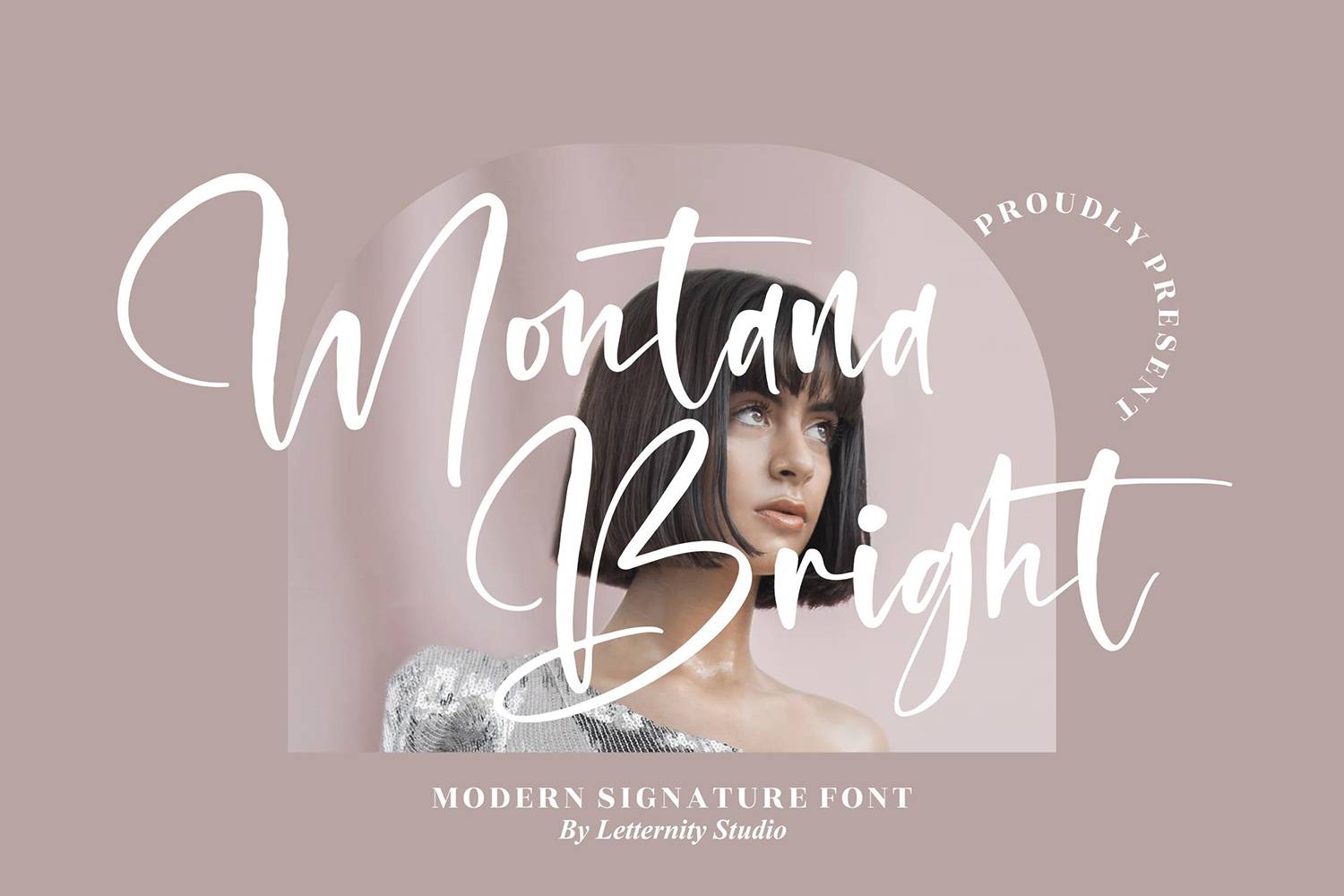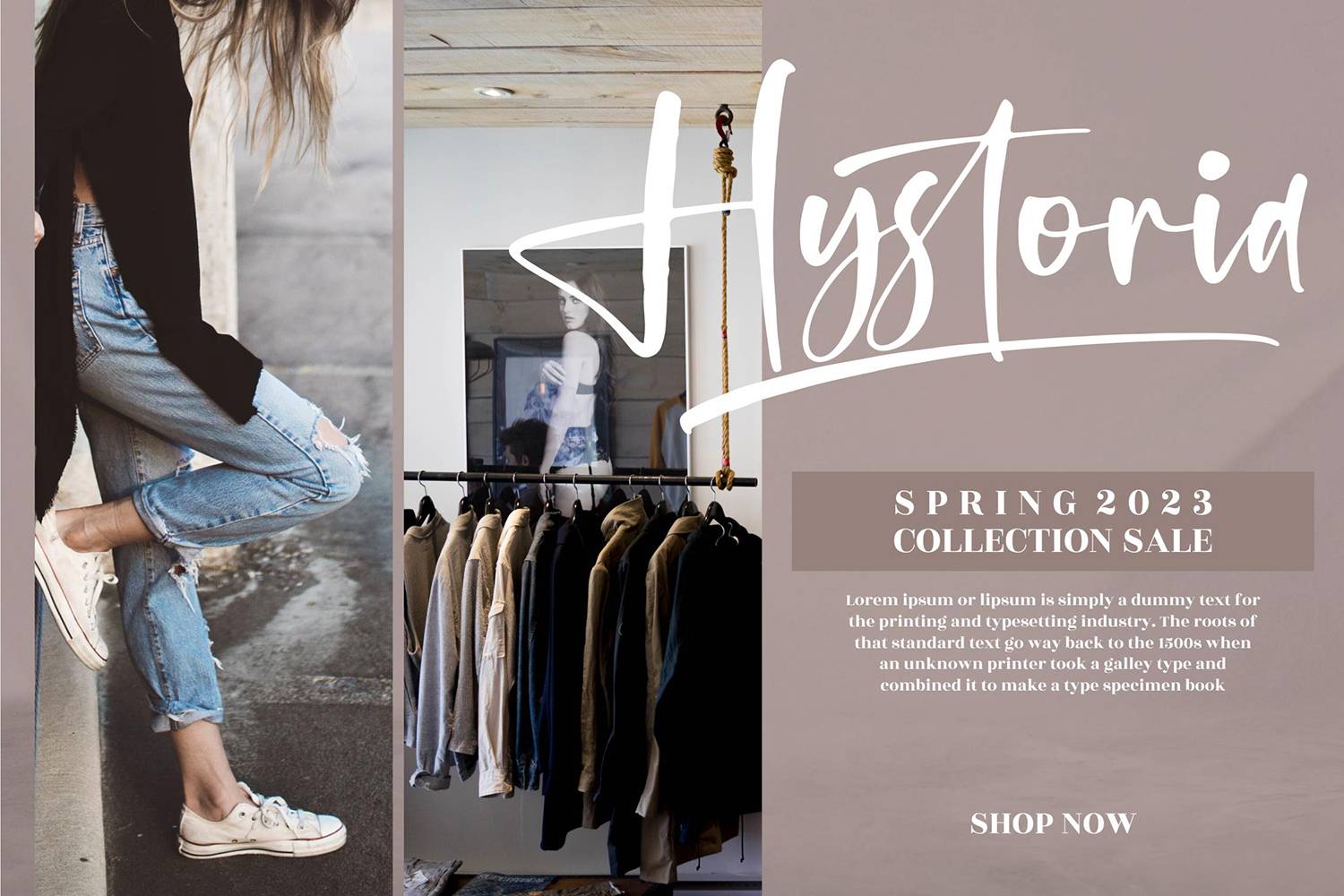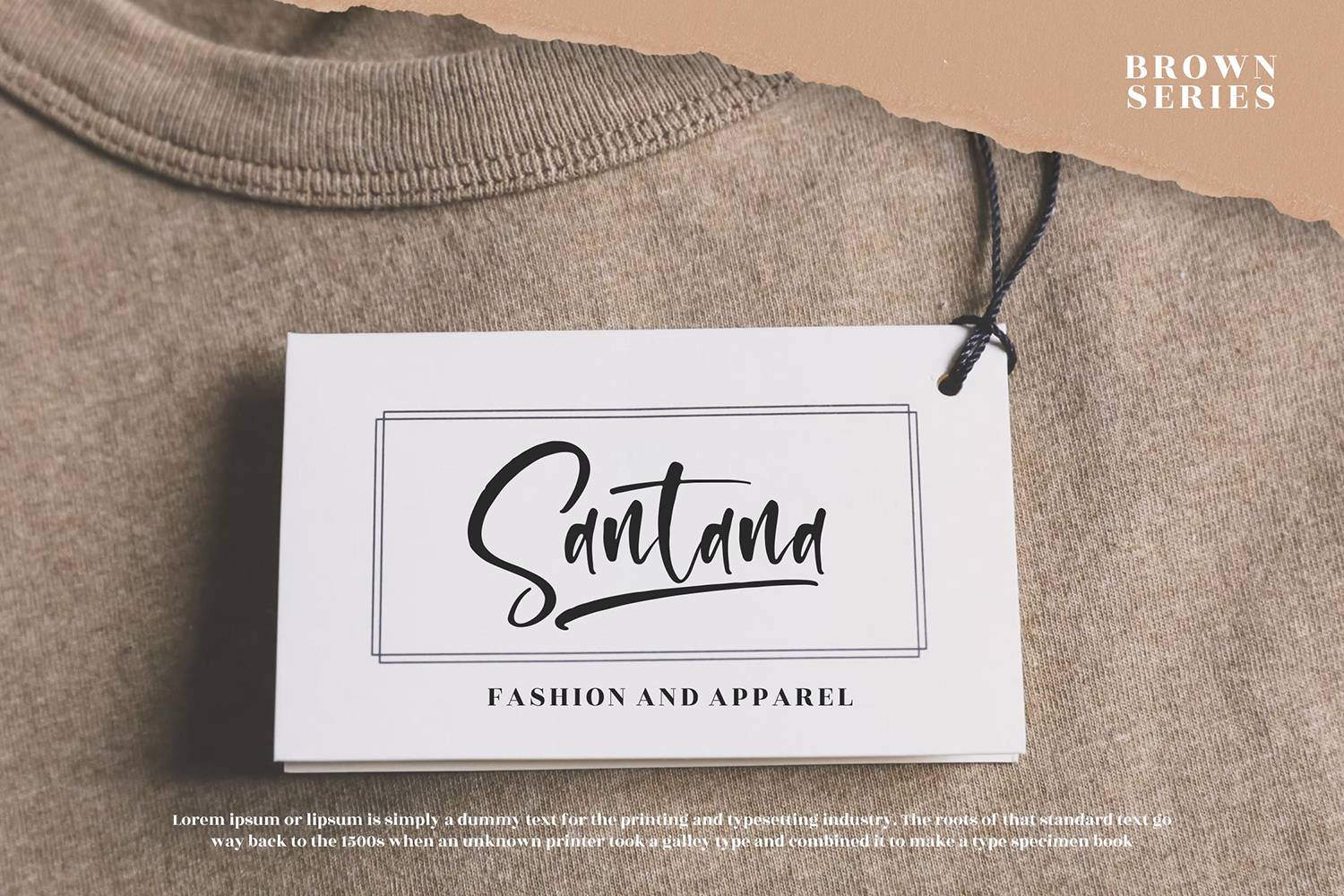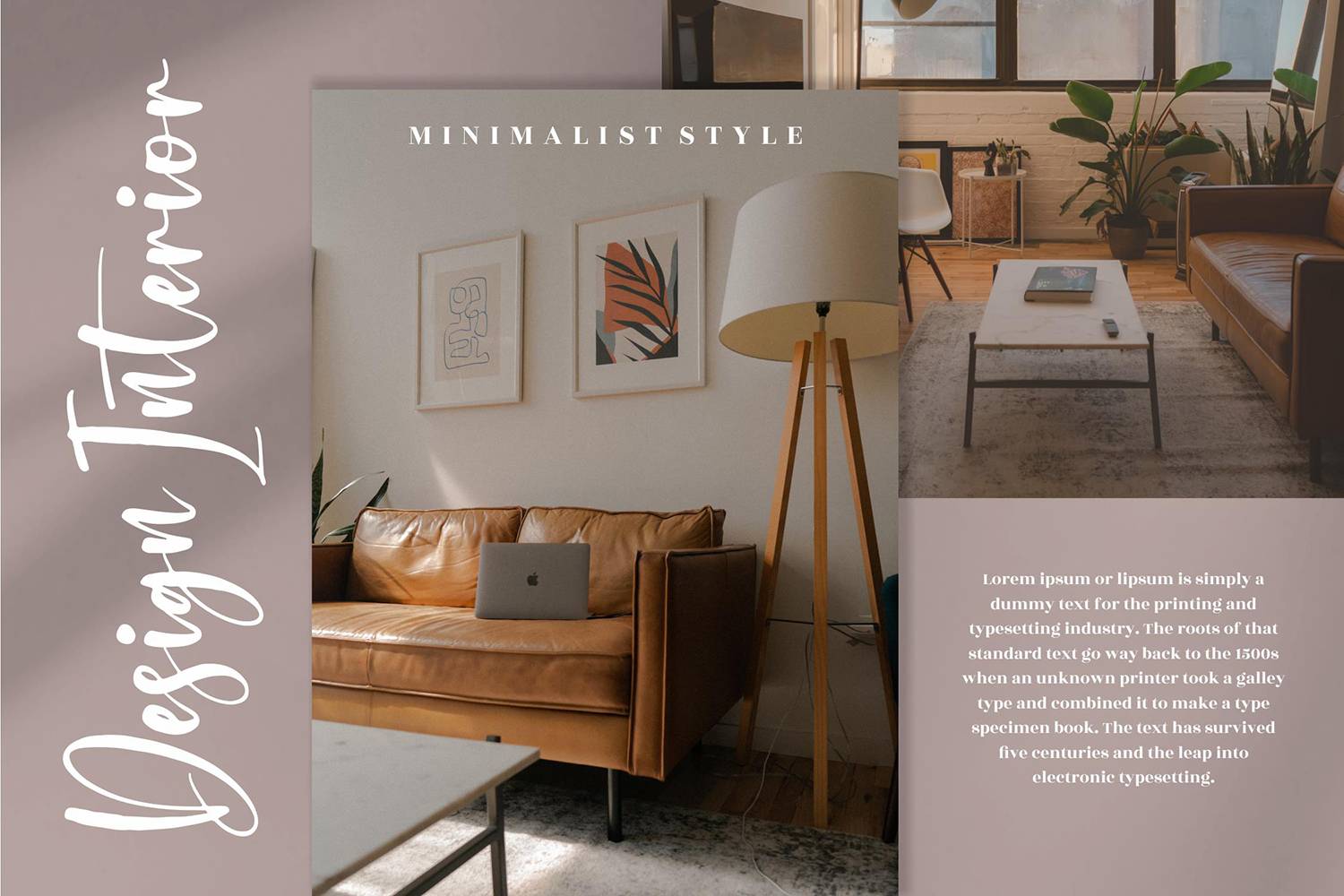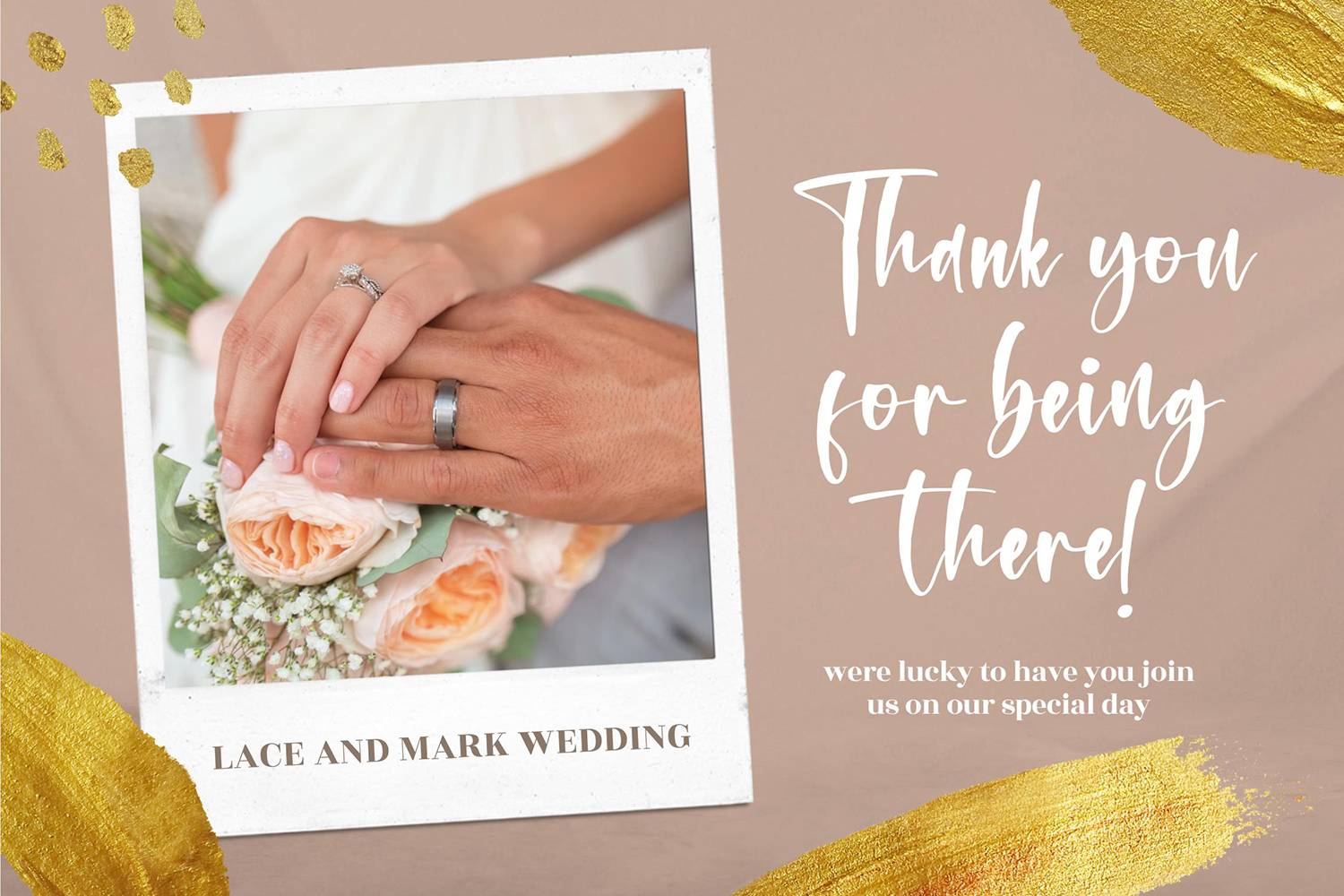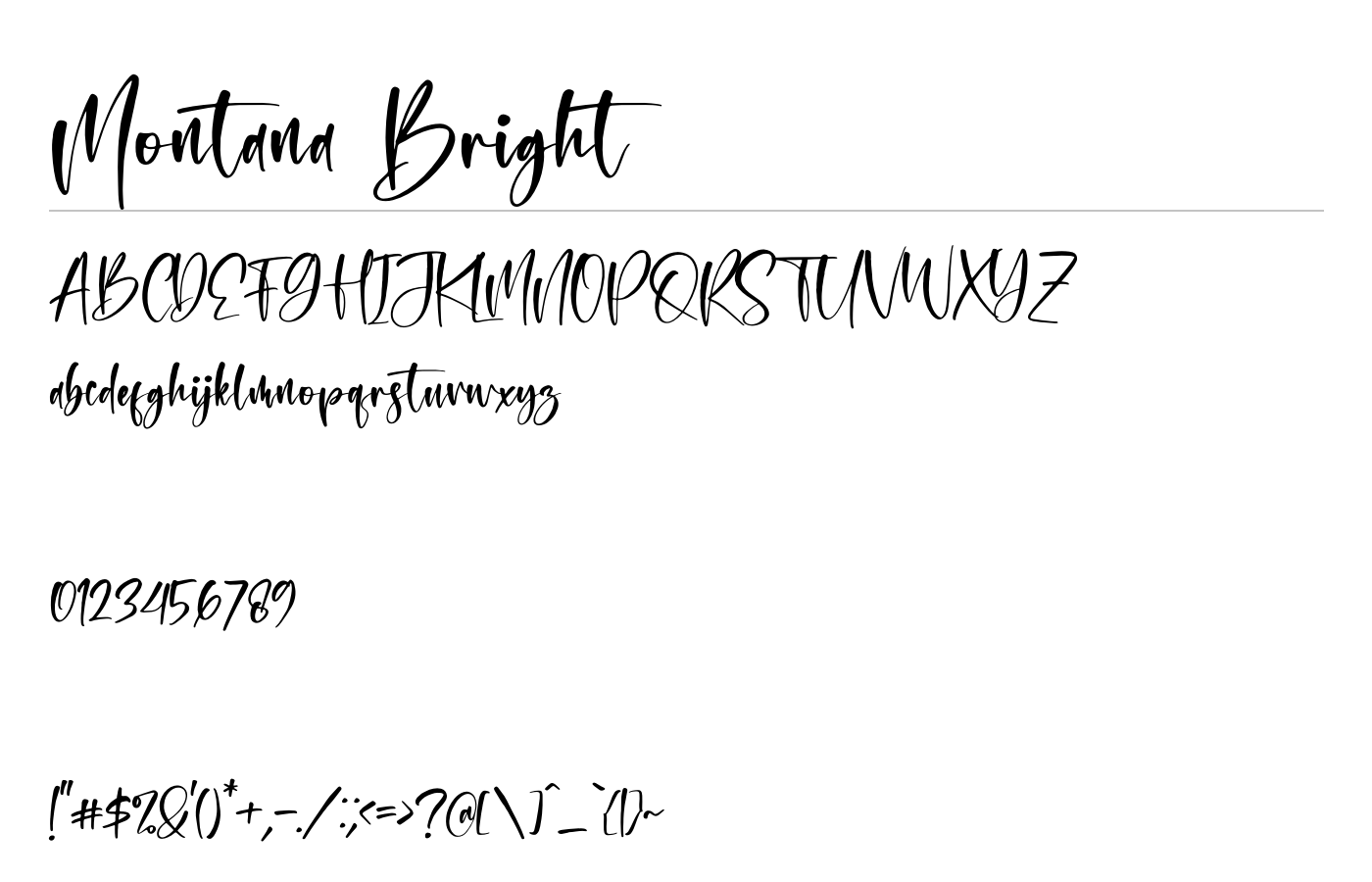
Montana Bright is a lively and elegant script font with a hand-drawn, brush-like style that combines fluid strokes and playful character shapes. Its tall, slender letterforms with varied stroke widths create a dynamic and modern feel, making it perfect for stylish branding, invitations, and creative headlines that want to convey warmth and personality. This font shines in projects that need a friendly yet sophisticated touch.
Montana Bright
About Montana Bright
| Font family | Montana Bright |